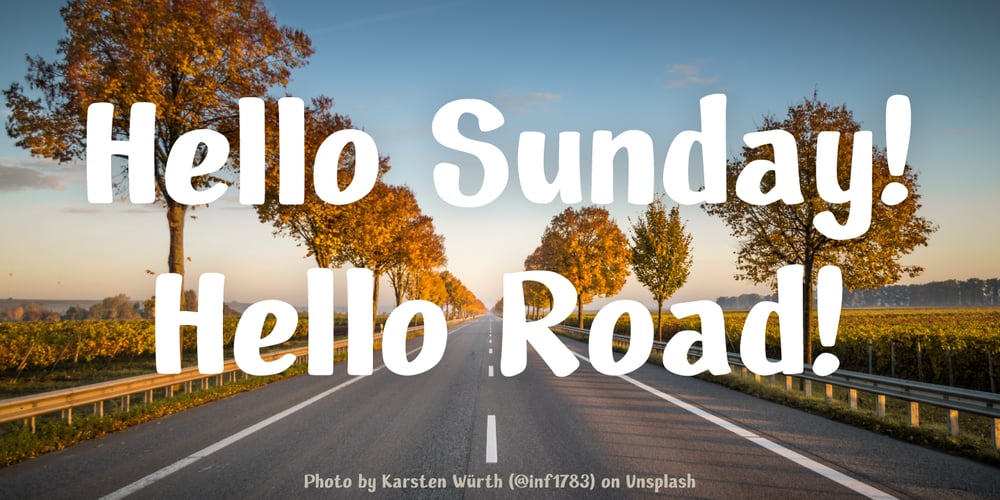
Sandy Font Family was designed by Oleg Stepanov and published by Oleg Stepanov. Sandy contains 1 styles and family package options. Sandy is a handwritten sans serif font, based on shapes made with ink brush. Sandy is a lively and informal typeface with good readability. Most of European languages are supported.